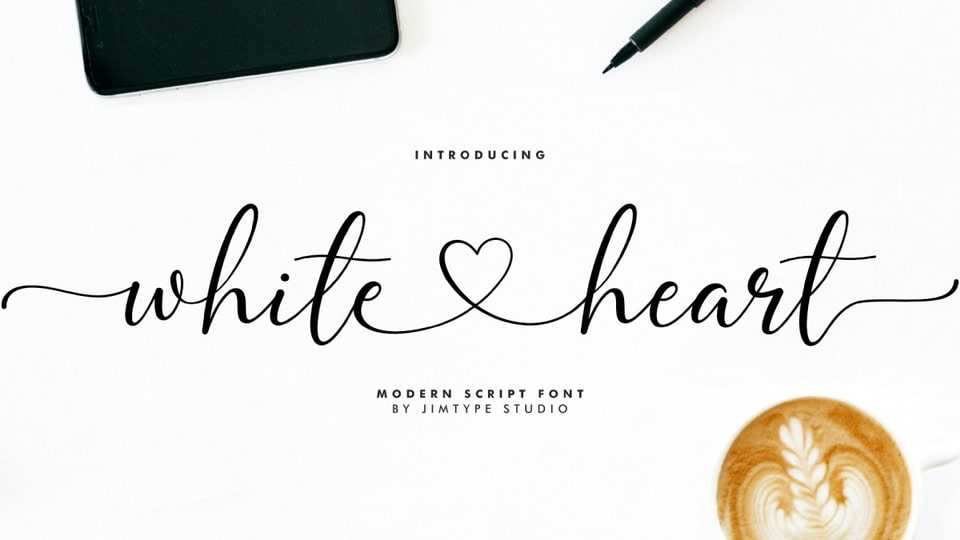
Download White Heart font, a modern, casual, and feminine handwritten script, perfect for wedding invitations, calligraphy logos for branding and so on.